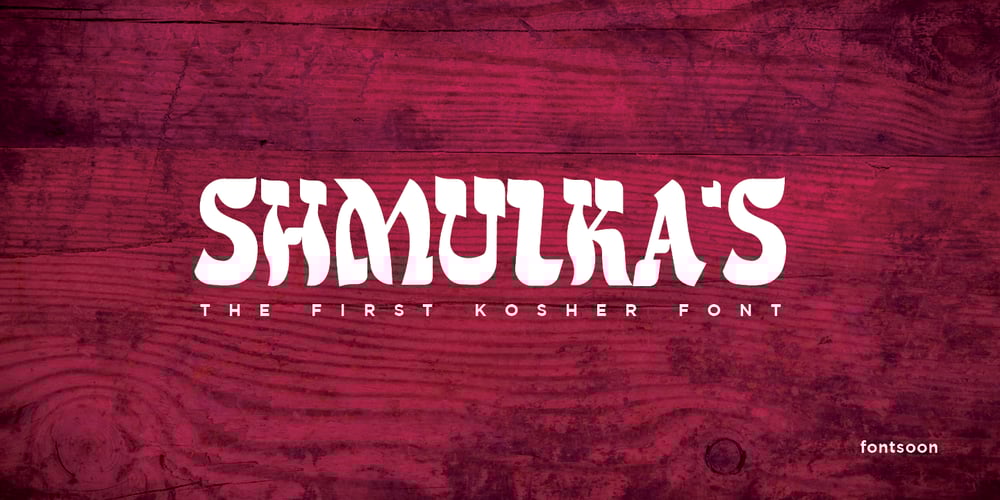
Shmulkas
Shmulkas font
Shmulkas Font Family was designed by Michael Eric and published by Fontsoon. Shmulkas contains 1 styles and family package options. Nu?! Vhat else vould you font?! Introduction to the first kosher vant…er…font! Yes, our Board certified rabbis made all the proper blessings so you can use this font guilt free. Just kidding, what’s Jewish without a schmear of guilt. This font borrows its style from the 2nd. Avenue Deli all the way down to Guss Pickles on Essex street. If pastrami on white bread with ketchup is for you, this font is NOT. Its strictly pastrami on rye with mustard and slaw on the side.